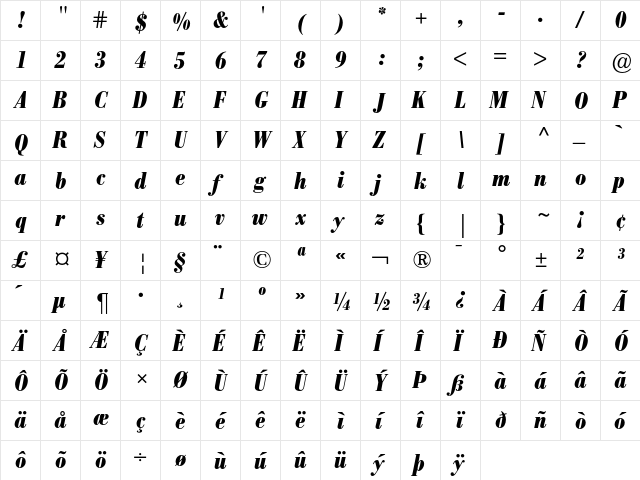
Bodoni BE Bold Condensed Italic Font Preview
| Style | Bold Condensed Italic |
Design Context for Bodoni BE Typeface
Bodoni BE takes a measured approach to typography — its balanced proportions and neutral character make it a reliable workhorse for both digital and print work. Its italic angle brings a sense of urgency and motion to the letterforms. Its bold stroke weight gives it real presence on the page. Its narrow stance lets it pack a punch even in space-constrained designs.